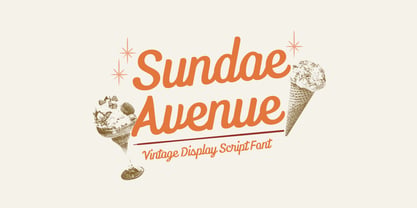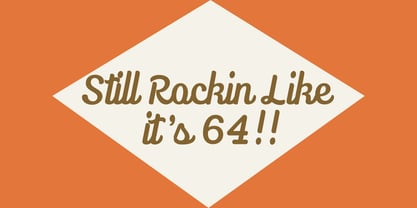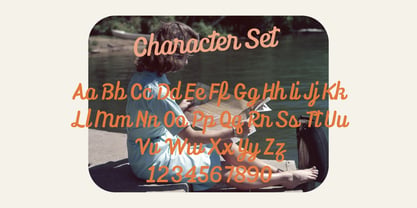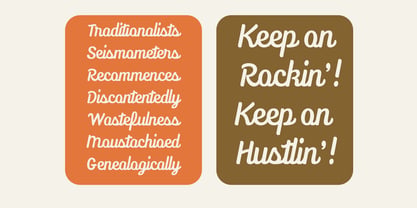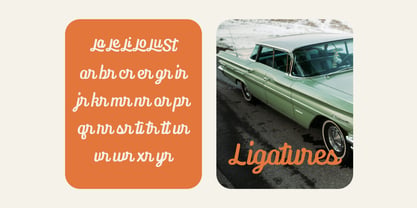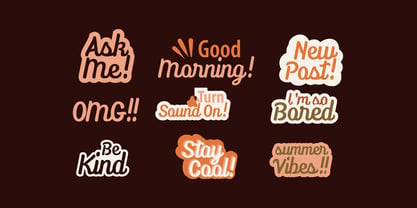
Sundae Avenue
La famille de polices Sundae Avenue a été conçue par Ilham Prambudiharjo Raharjo et publiée par PB Type. Sundae Avenue contient 1 styles. En savoir plus sur cette famille
Sundae Avenue is a charming vintage script font that captures the essence of retro elegance with a playful twist. This font exudes a nostalgic, handwritten feel, making it perfect for designs that aim to evoke a sense of timelessness. With its fluid curves and distinct letterforms, Sundae Avenue adds a touch of whimsy to branding, invitations, logos, and more. Its unique balance between sophistication and friendly appeal makes it a standout choice for any creative project that wants to merge old-school charm with modern flair.